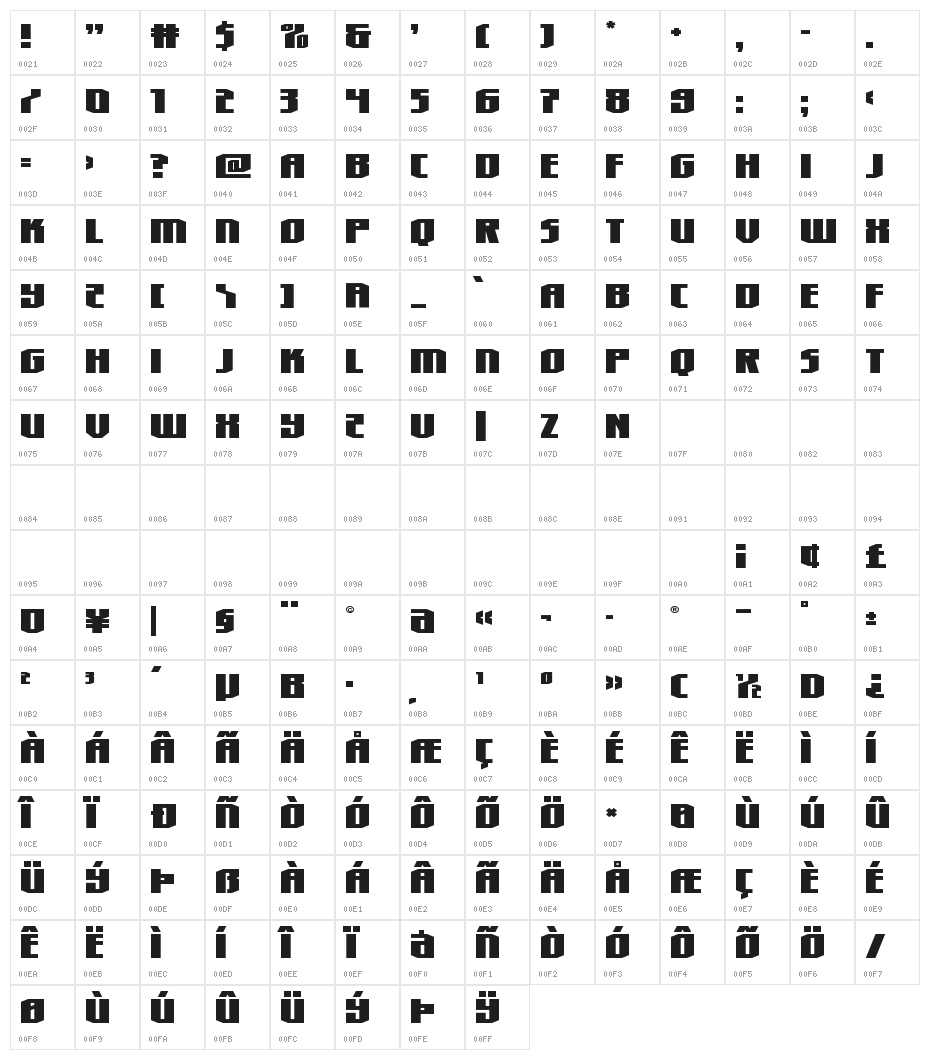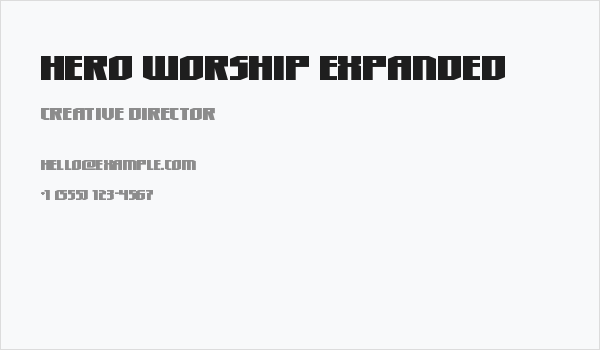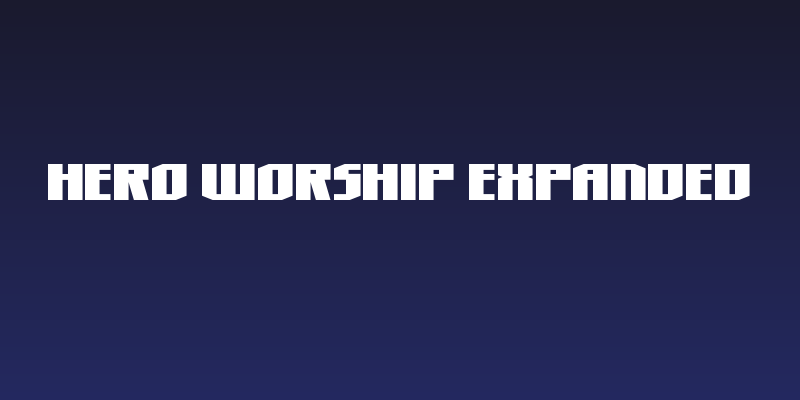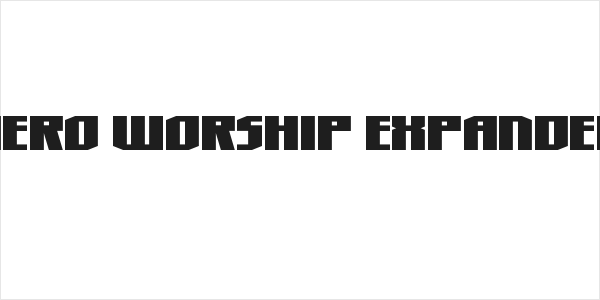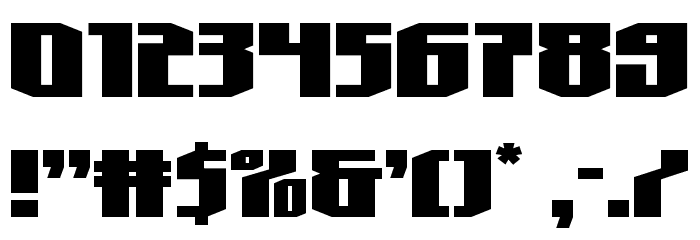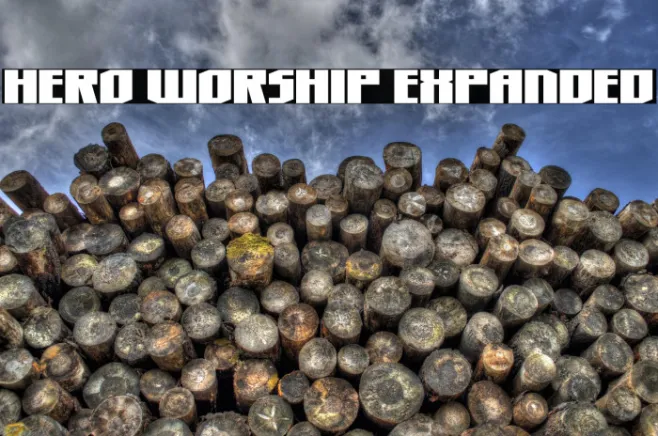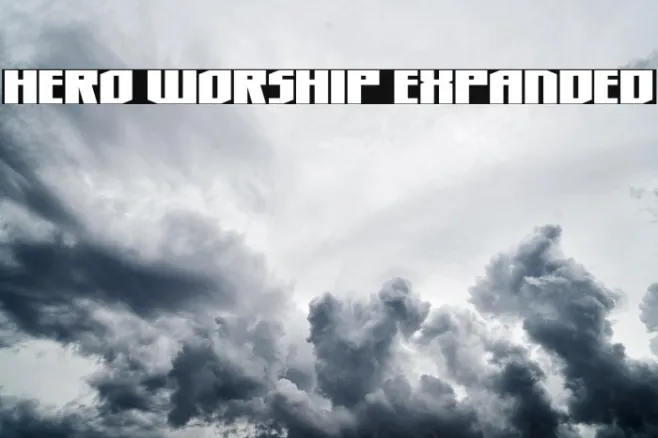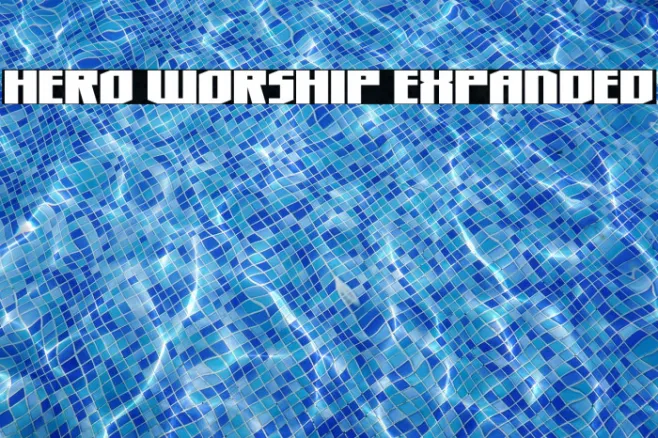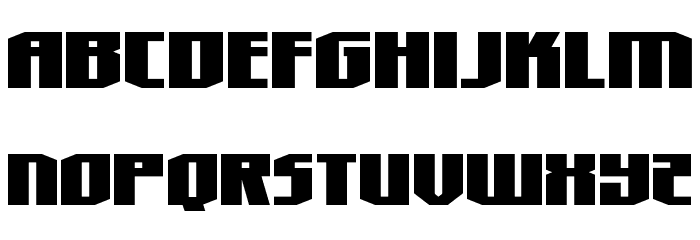
Hero Worship Expanded Font
Hero Worship Expanded Description
This font features a bold, geometric design with a strong, impactful presence. The characters are constructed with thick, angular lines and sharp edges, giving it a modern and assertive look. The uppercase and lowercase letters maintain a consistent style, emphasizing uniformity and strength. The numbers and special characters follow the same design principles, ensuring a cohesive appearance across all elements. This font's expanded width and blocky structure make it ideal for attention-grabbing headlines and titles.
| Proposed Projects | Ideal for branding, posters, headlines, and any design requiring a bold statement. |